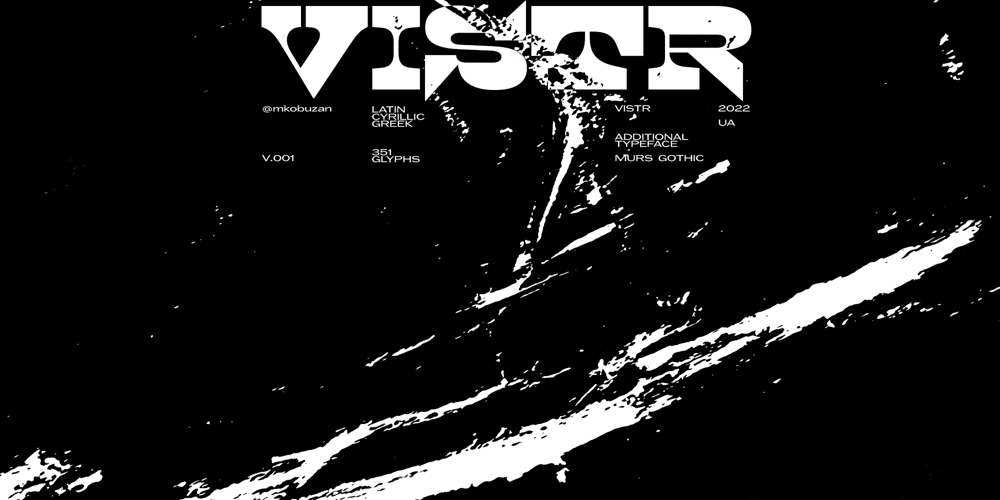
Vistr
Vistr font
Vistr Font Family was designed by Maksym Kobuzan and published by Kobuzan. Vistr contains 1 styles and family package options. Vistr is a reverse-contrast display typeface inspired by western movies, infused with the tension of classic horror films. Powerful serifs, smooth curves, sharp details and an impressive contrast of strokes are unusually combined with each other. This creates a dramatic, eye-catching effect. Which is ideal for use in large sizes in titles and headlines to create a gloomy mood.This is an ALL-CAPS font. There is support for extended Latin, basic Cyrillic, and Greek.Features:– Total glyph set: 351 glyphs;– 1 style;– Support 210+ languages;– Latin Extended;– Cyrillic Basic + Bulgarian letters;– Greek;OpenType features:– Uppercase;– Proportional numerals;– Punctuations and symbols;– Arrows;– Stylistic alternates (ss01).